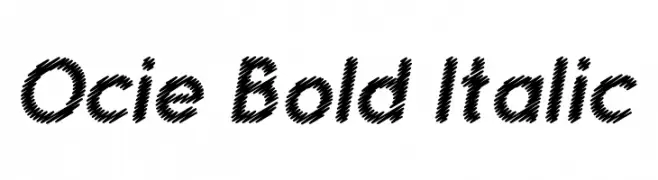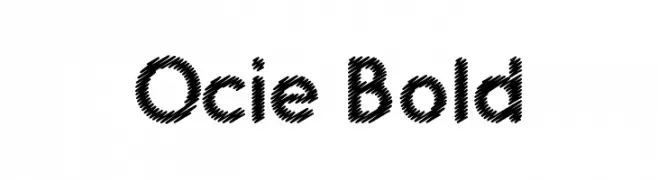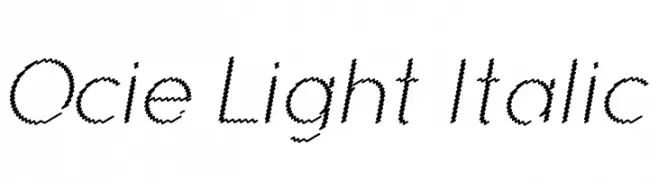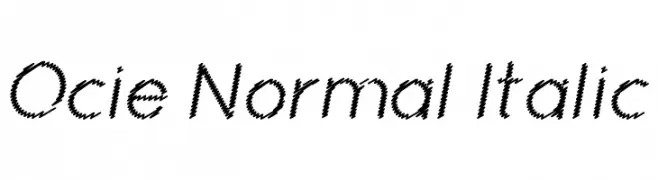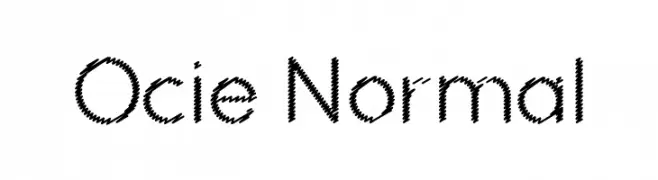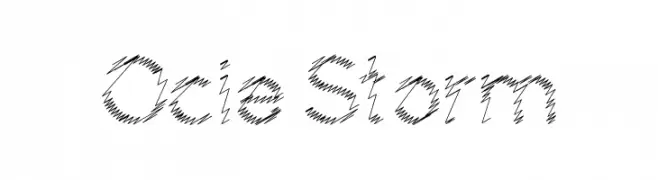
Ocie Bold Font
Font by Louis Dorman
A bold, textured font with diagonal hatching for a dynamic look.
Ocie Bold Italic Font
Font by Louis Dorman
Bold, italicized font with a textured, dynamic appearance.
Ocie Light Font
Font by Louis Dorman
A modern sans-serif font with a unique zigzag pattern for a textured look.
Ocie Normal Font
Font by Louis Dorman
A textured, zigzag font with a dynamic and energetic style.
Ocie Storm Font
Font by Louis Dorman
A dynamic, sketch-like font with zigzag strokes, creating an energetic and bold appearance.
Ocie Normal Italic Font
Font by Louis Dorman
A dynamic, italic font with textured, diagonal lines for a playful and creative look.
Ocie Light Italic Font
Font by Louis Dorman
A dynamic italic font with a zigzag pattern and consistent stroke width.